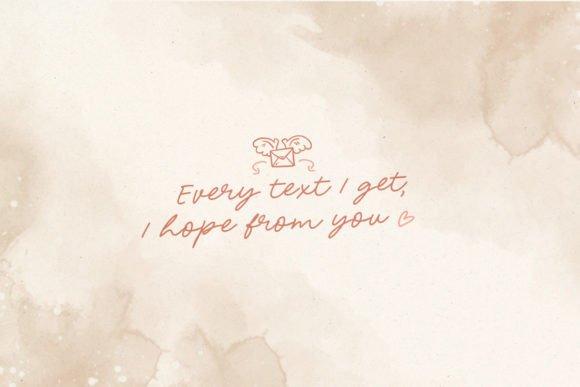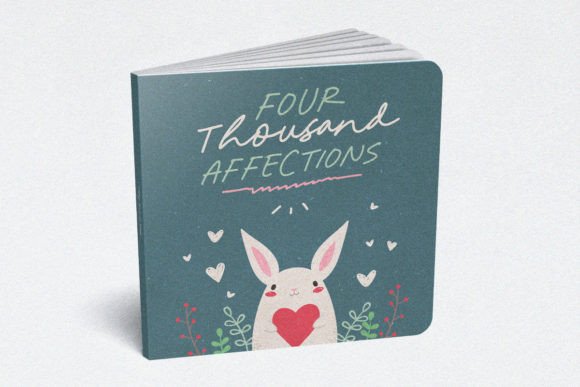
Dear Crush is both cute and romantic, with letters that capture the essence of love and charm. The letters are well-crafted, with delicate curves and elegant strokes that create a sense of grace and tenderness. Its sweet and romantic appearance makes it perfect for wedding invitations, love letters, and designs that require a touch of intimacy and warmth.
Dear Crush Font